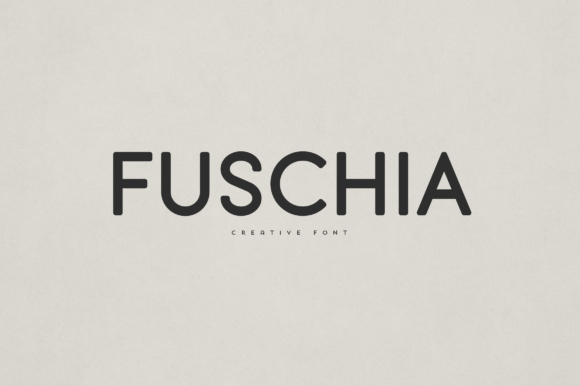
In the realm of typography, meet Fuschia, an extraordinary sans serif font that will ignite your creativity and elevate your designs to new heights. With its graceful curves and captivating presence, Fuschia promises to weave a spell of elegance and sophistication into your projects.
Embark on a visual journey where Fuschia's clean lines and crisp edges bring a refreshing clarity to your typography. This font is not just a collection of characters; it's an artistic expression that will transform your words into captivating works of art.
Unleash the allure of Fuschia and witness the transformation of your Instagram posts. Its modern and stylish strokes will make your content shine, capturing the attention of your audience and leaving a lasting impression. Let your captions dance with eloquence and your images radiate with charm, as Fuschia weaves its magic and turns your Instagram feed into a masterpiece.
Fuschia is a versatile chameleon, effortlessly adapting to a multitude of design landscapes. From branding projects to home-ware designs, from product packaging to magazine headers, Fuschia seamlessly blends into any backdrop, enhancing its surroundings with a touch of grace.
Picture the allure of Fuschia adorning your brand's logo, its sophisticated presence exuding professionalism and attracting customers like moths to a flame. Envision your home-ware designs adorned with Fuschia's elegance, each piece imbued with a sense of timeless charm.
Let Fuschia's allure grace your product packaging, transforming ordinary boxes into captivating canvases that entice customers to reach out and discover the treasures within. Its delicate strokes will elevate your magazine headers, adding a touch of class and sophistication that will leave readers yearning for more.